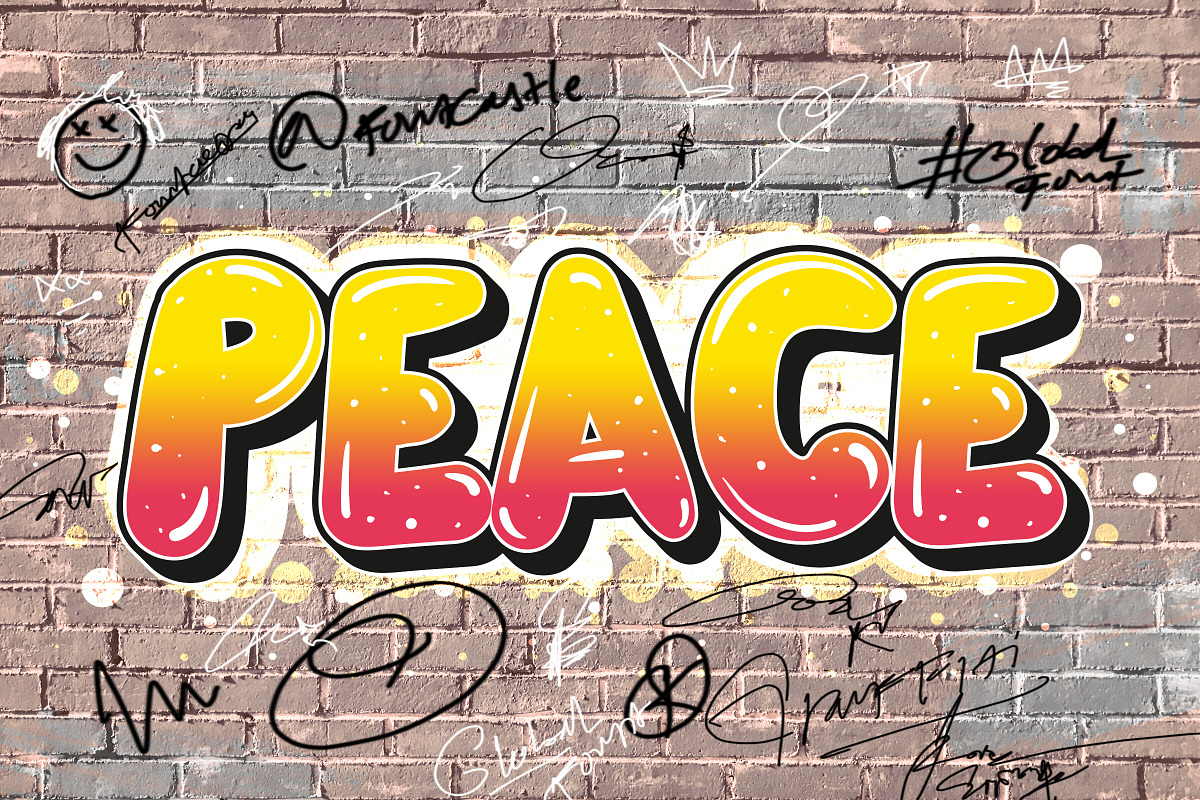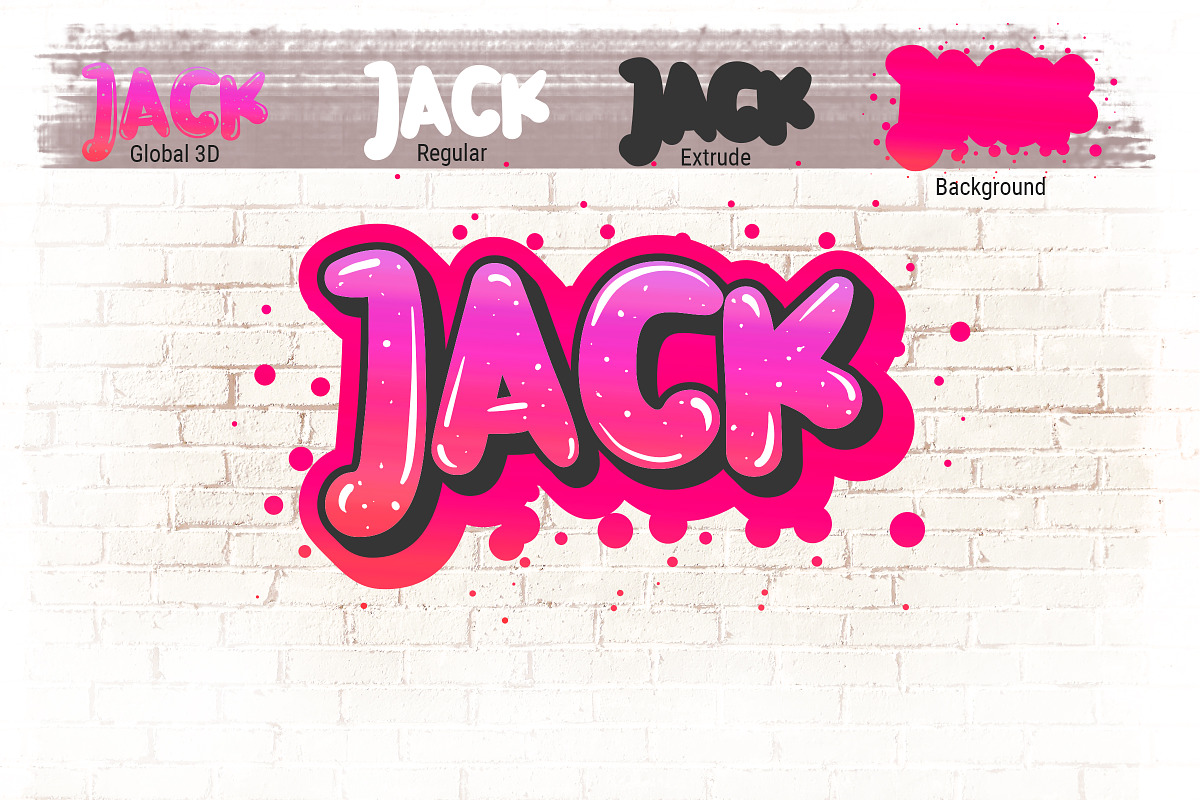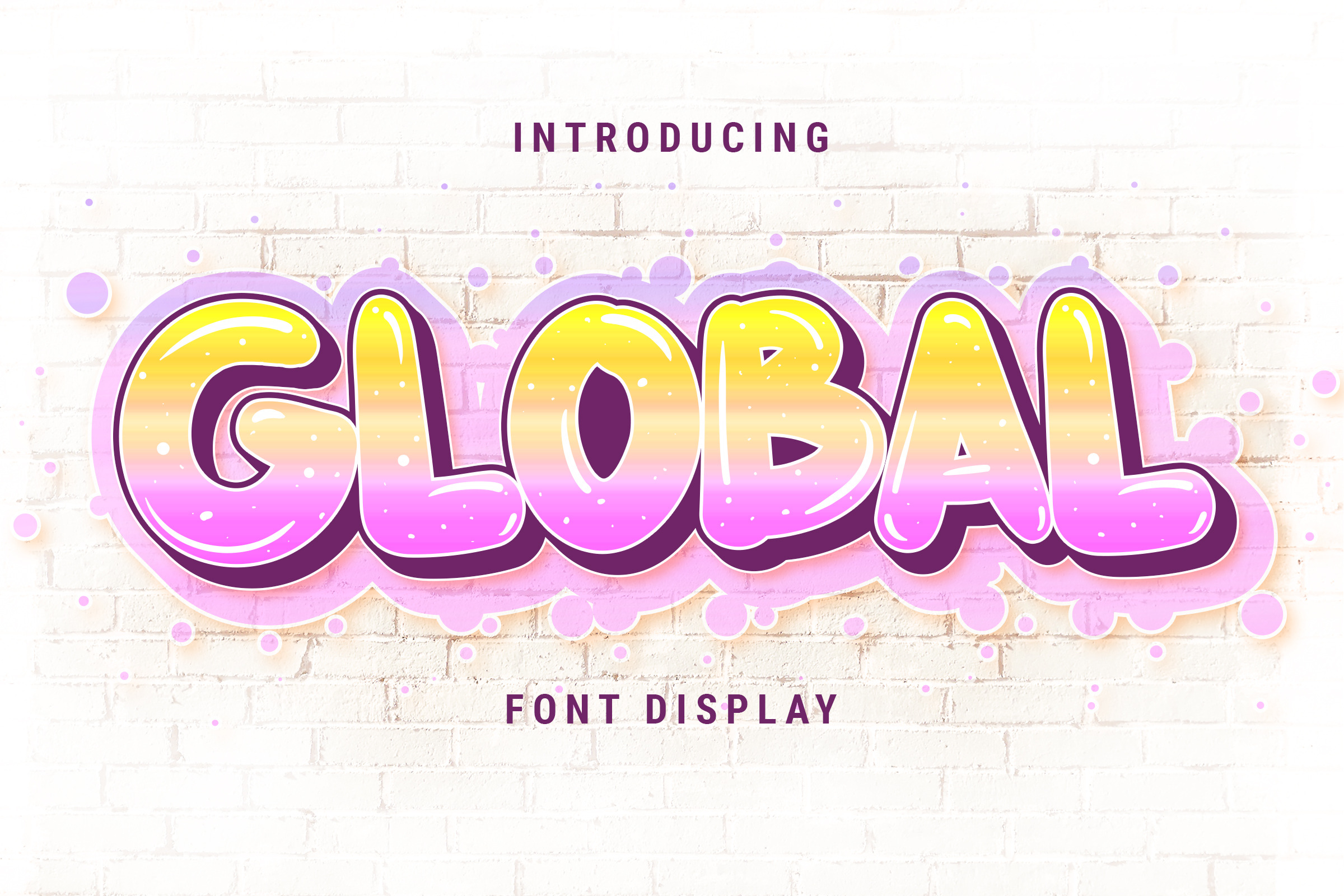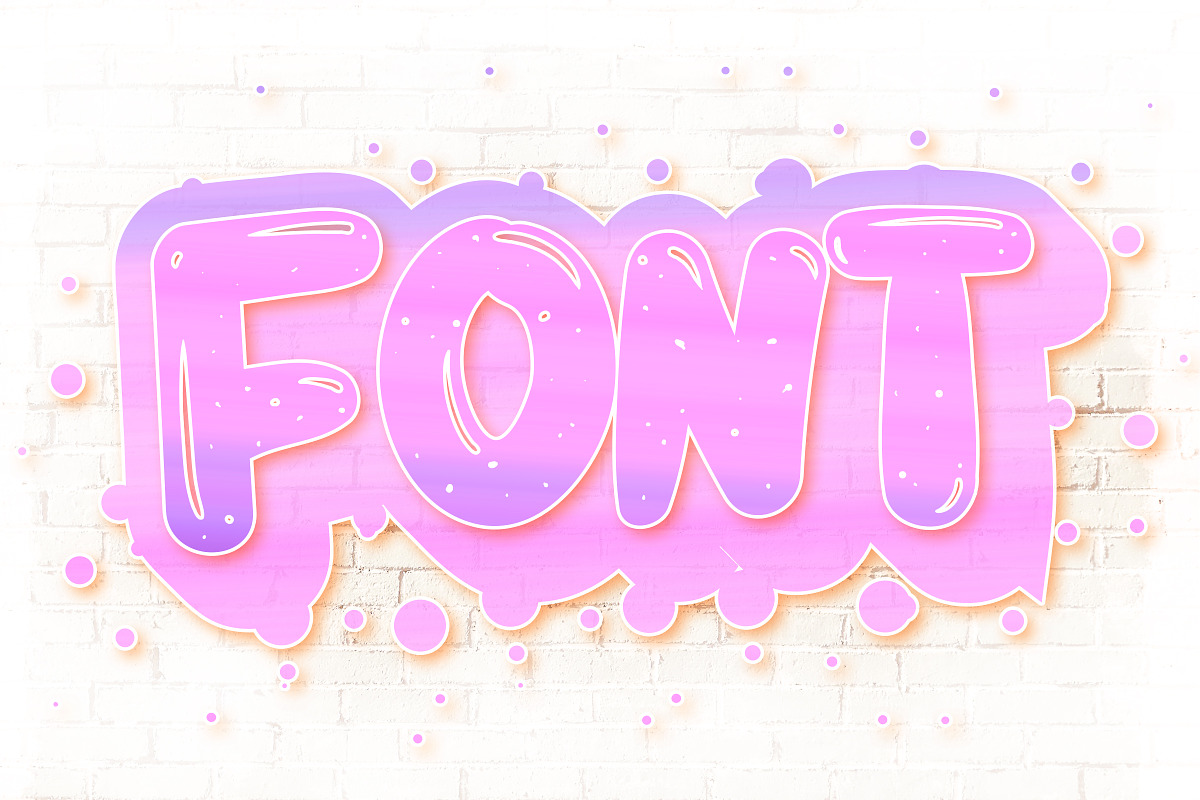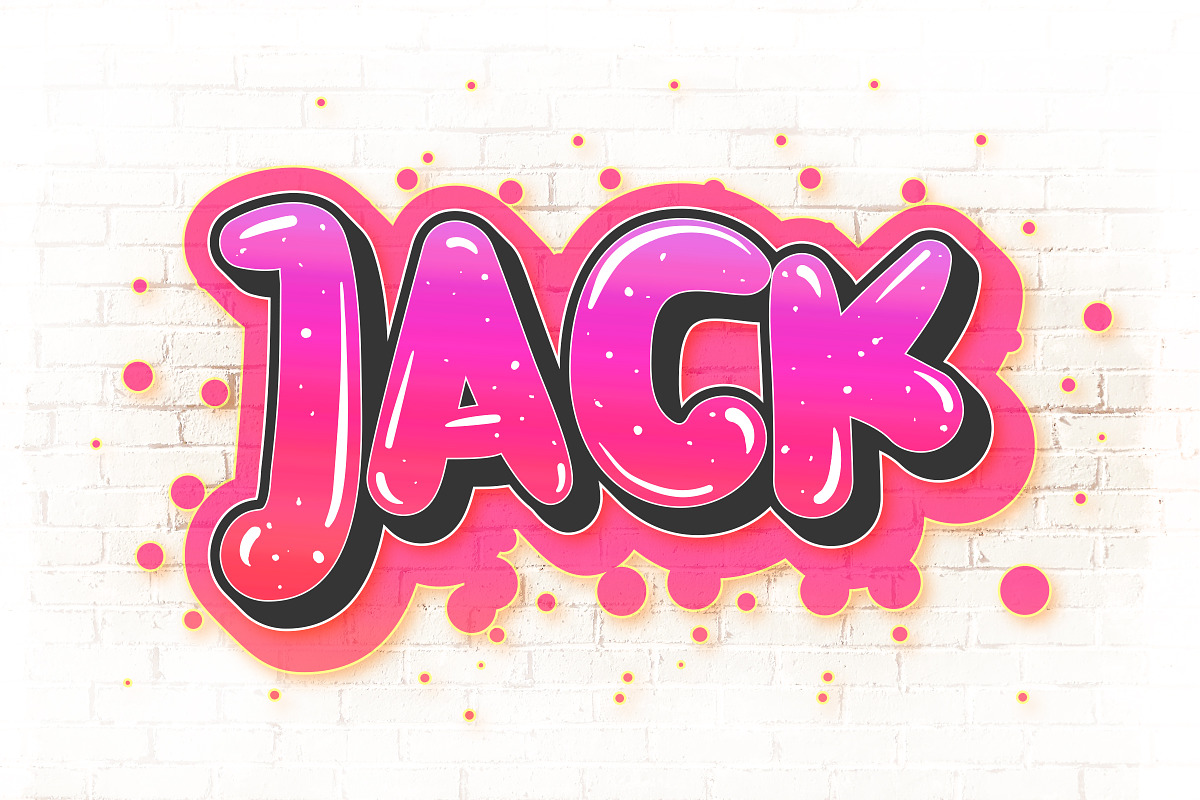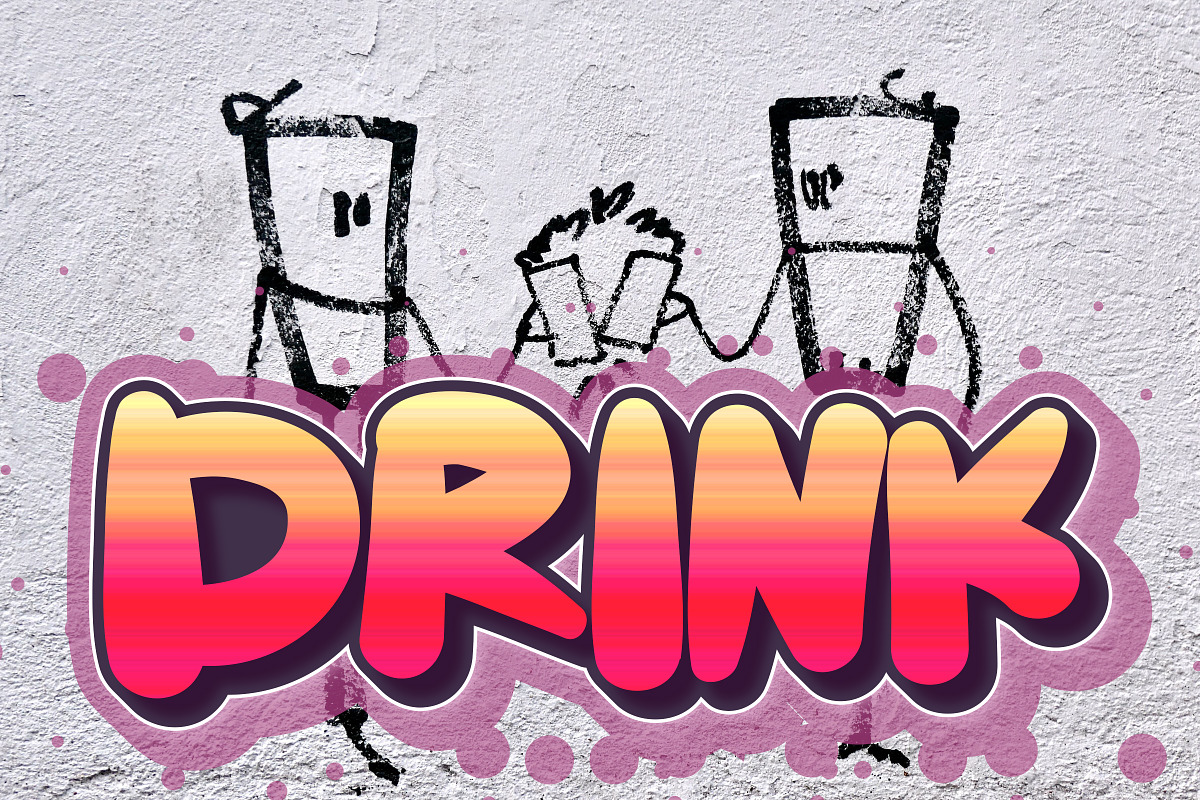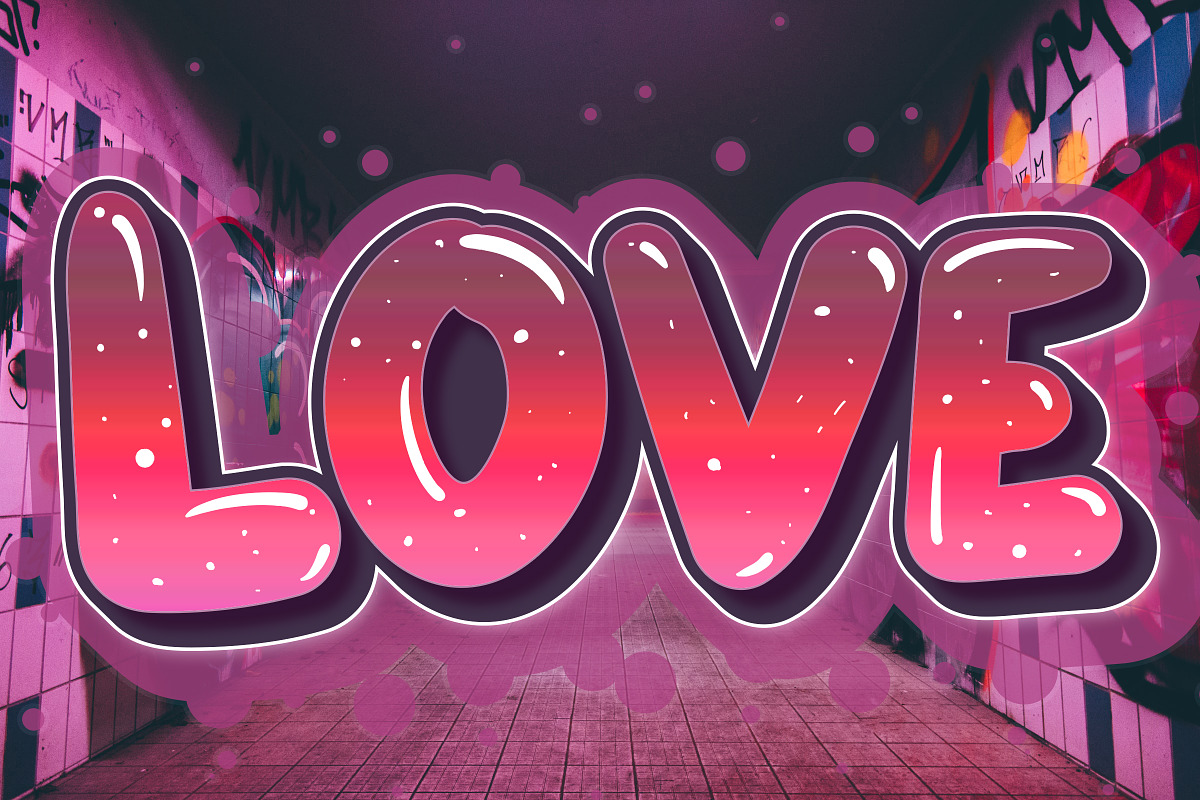
Global - Display Font
Introducing: Global! A bold and playful all-caps sans-serif font that includes four versions of each letter which can be used separately or on top of each other to achieve a different look. This font is PUA encoded which means you can access all of the glyphs and alternates with ease! (please type the preview to see if I have what you need!)